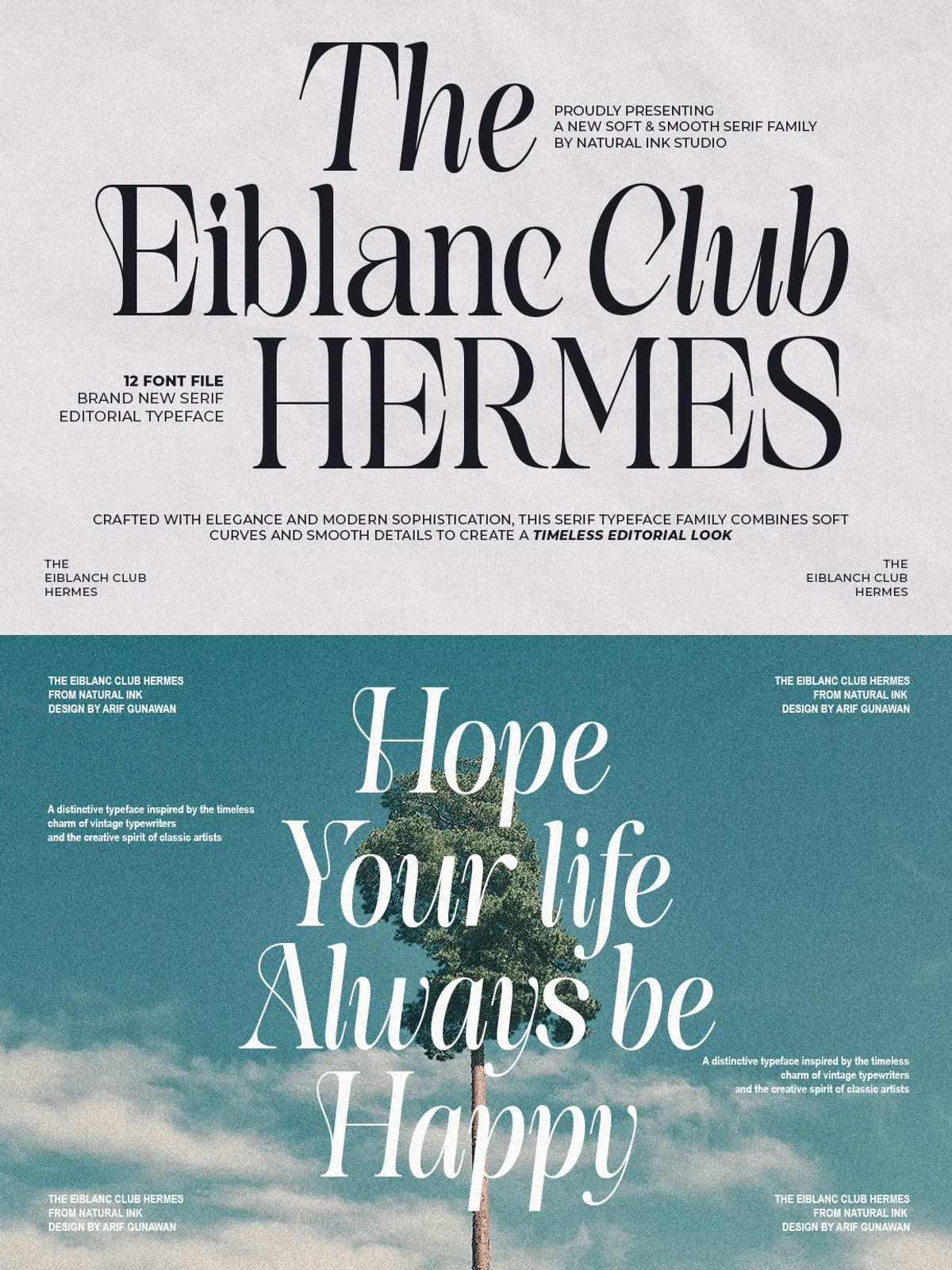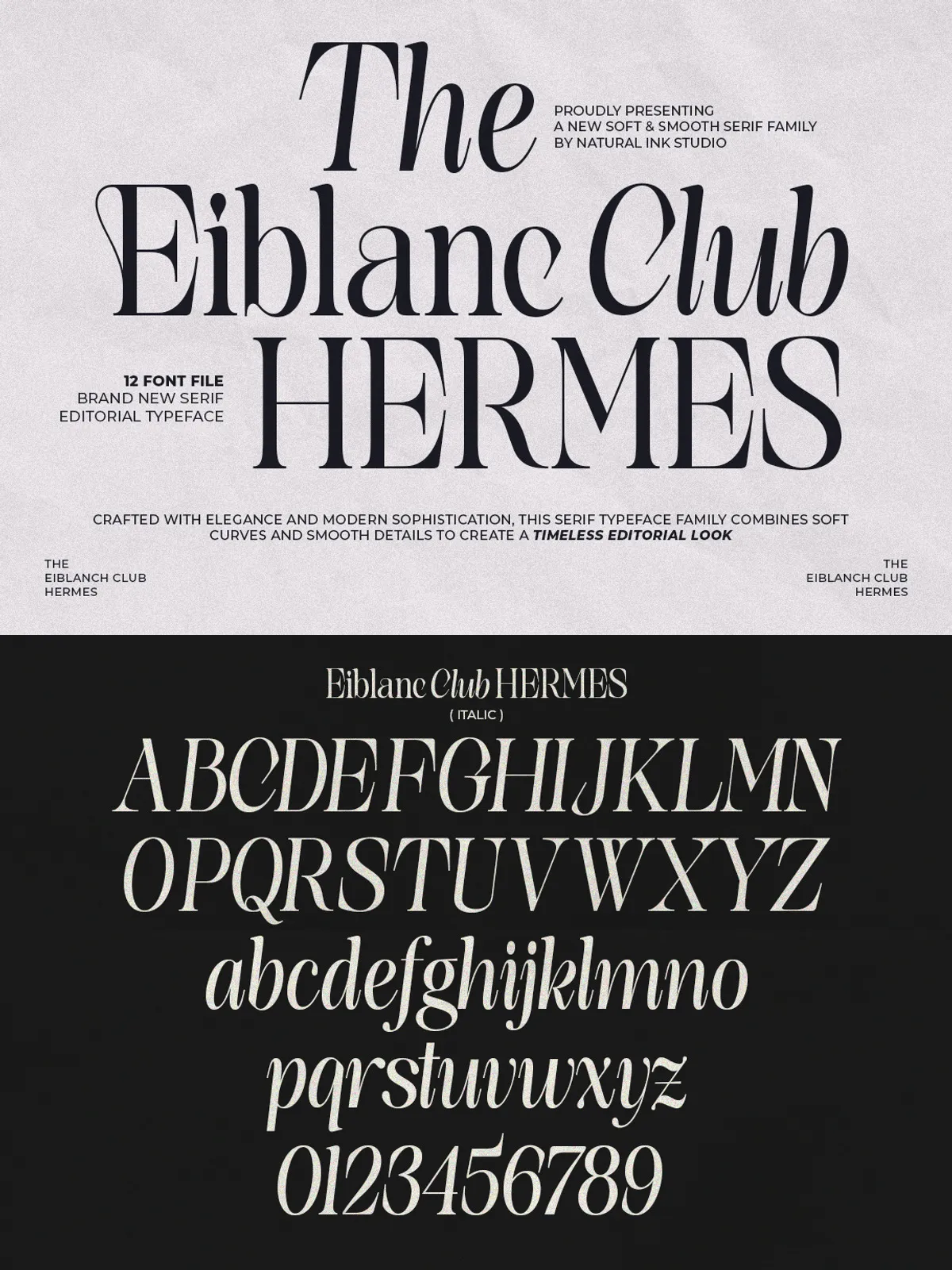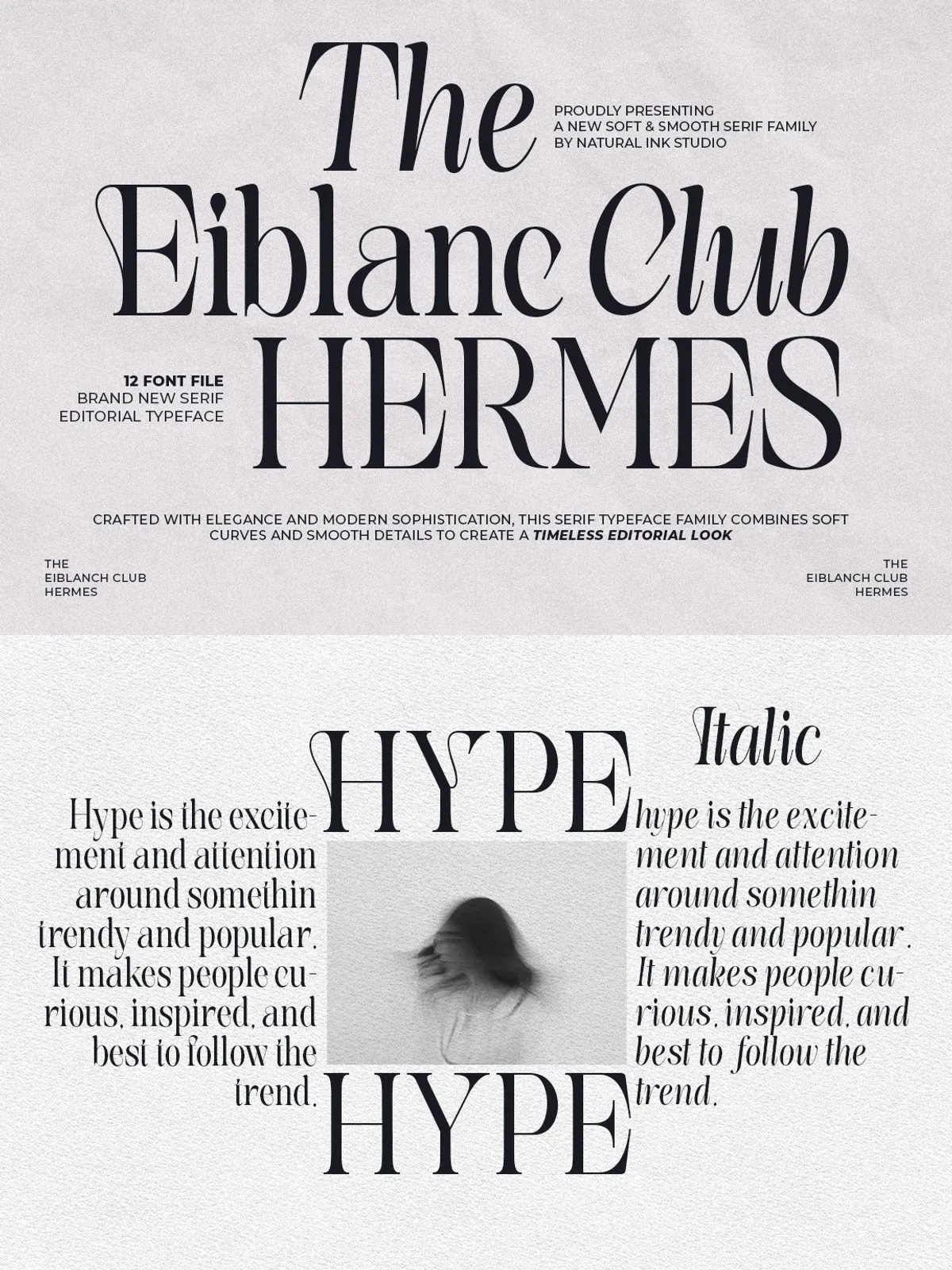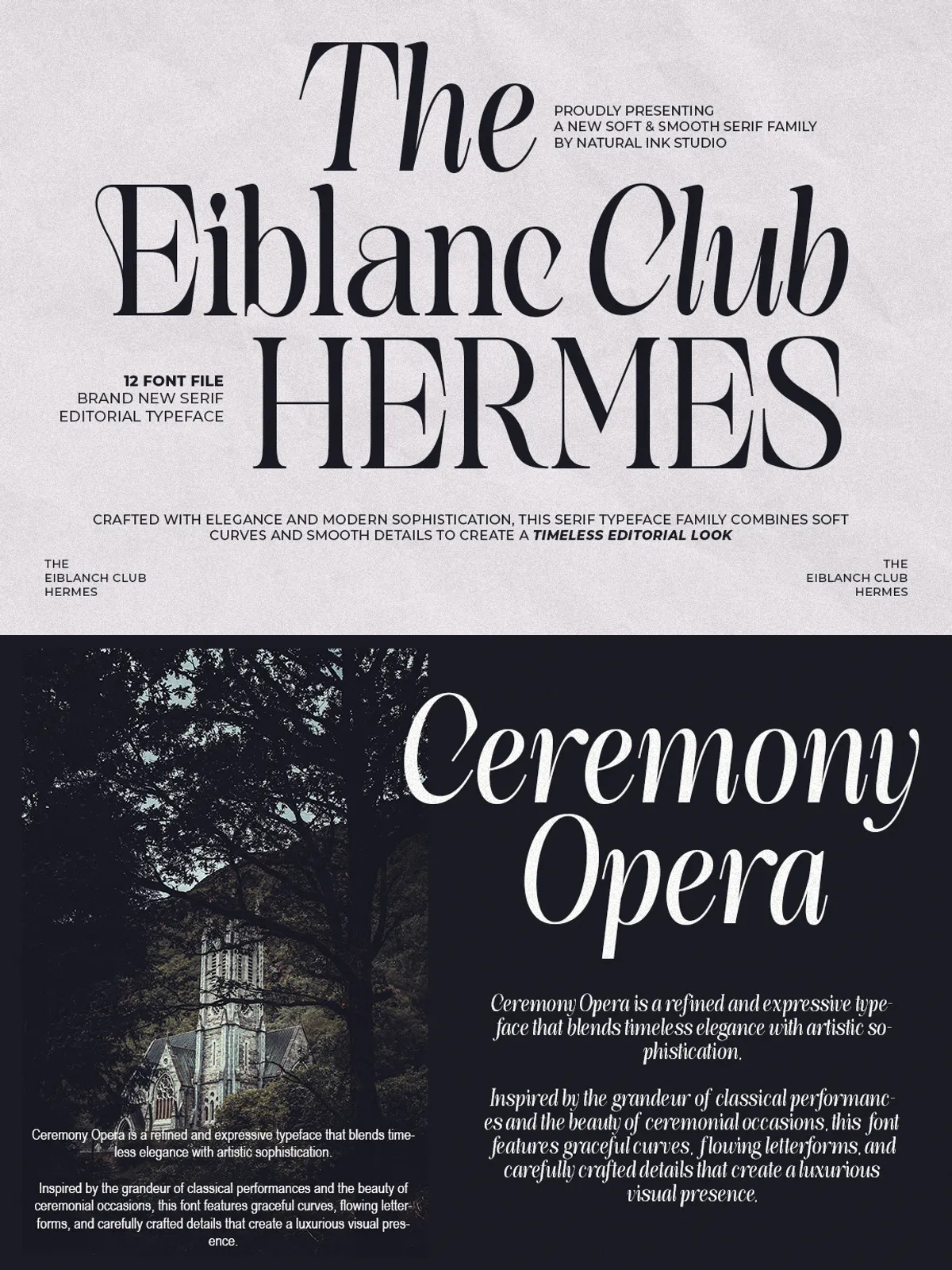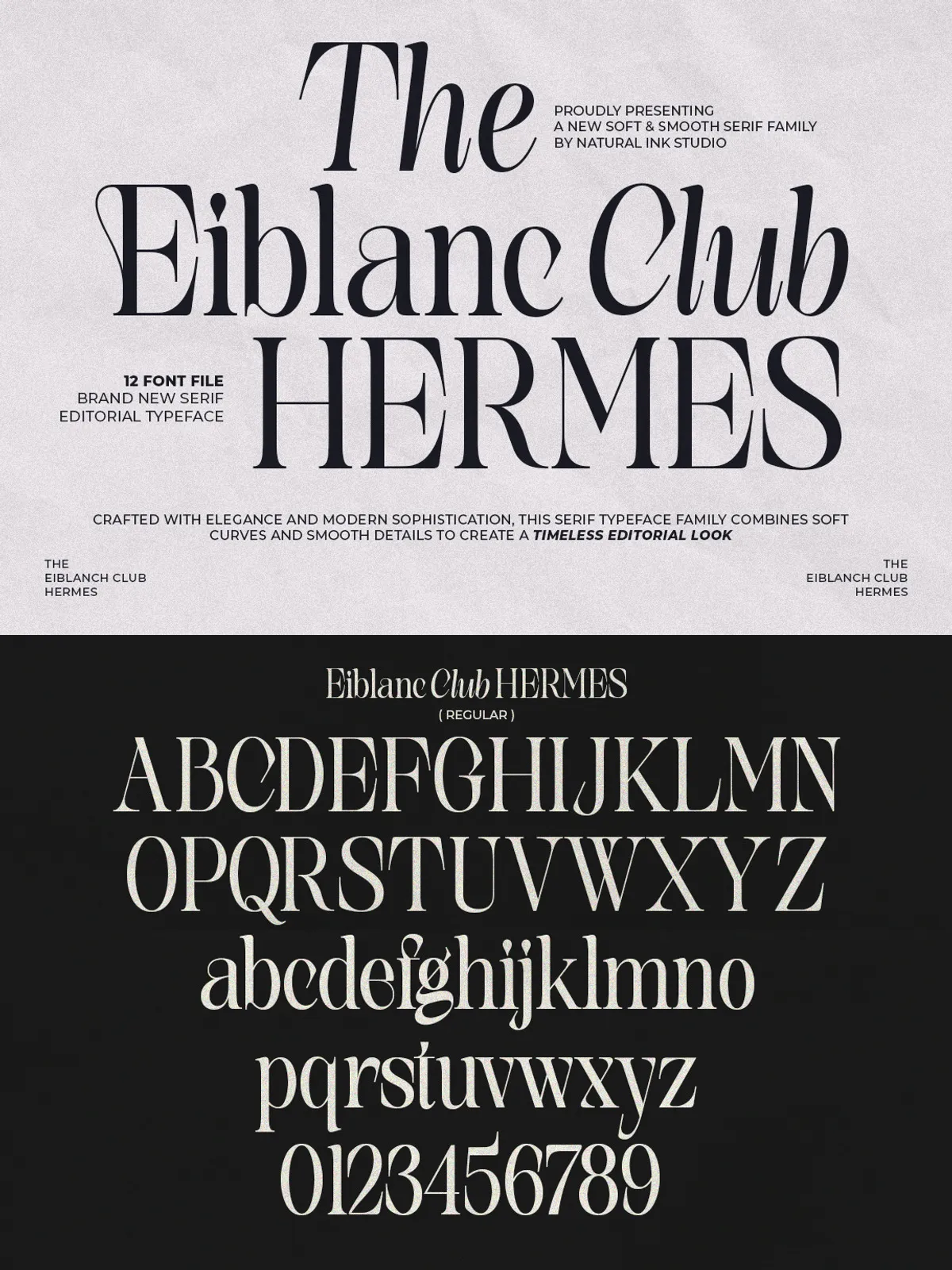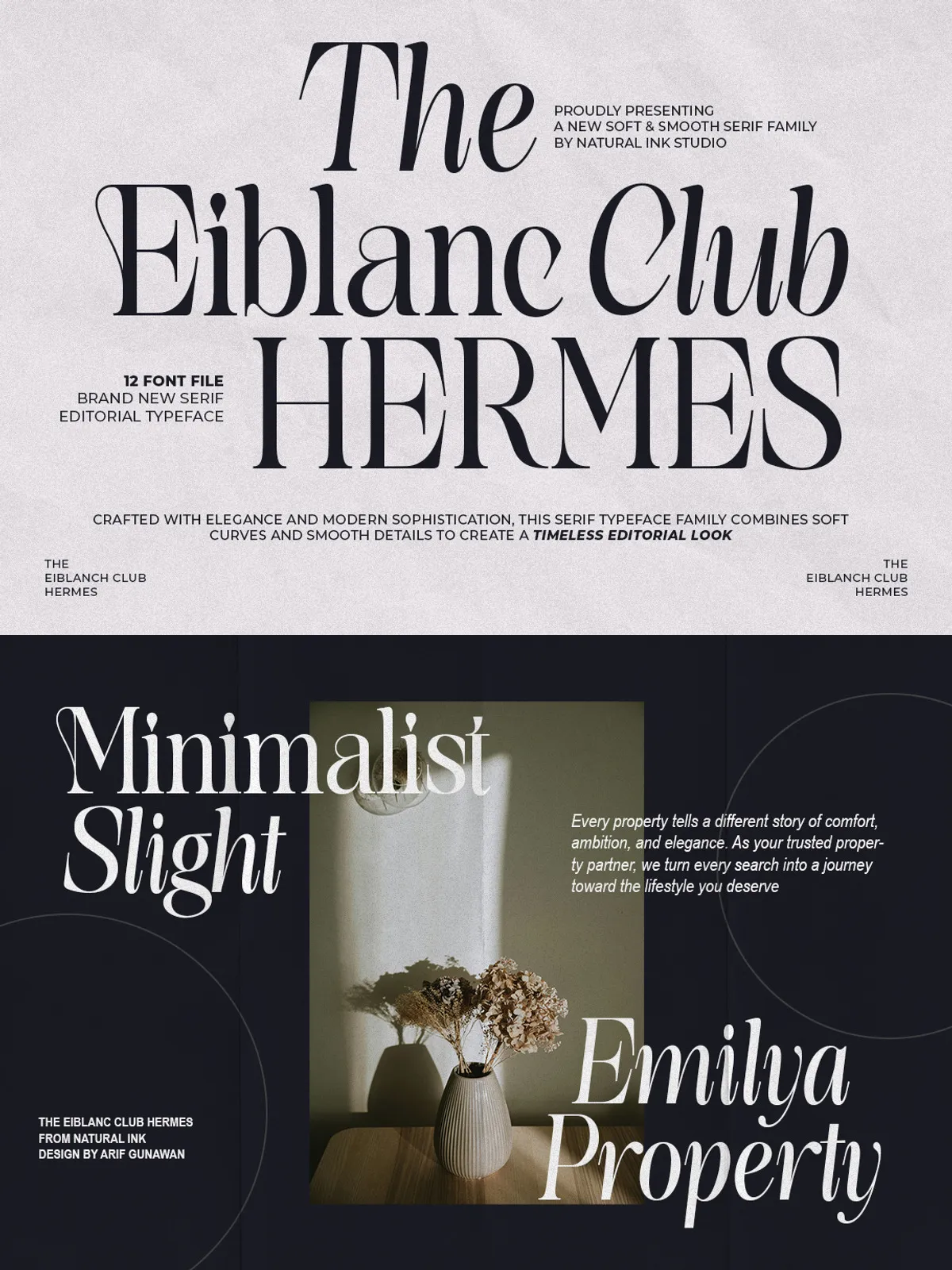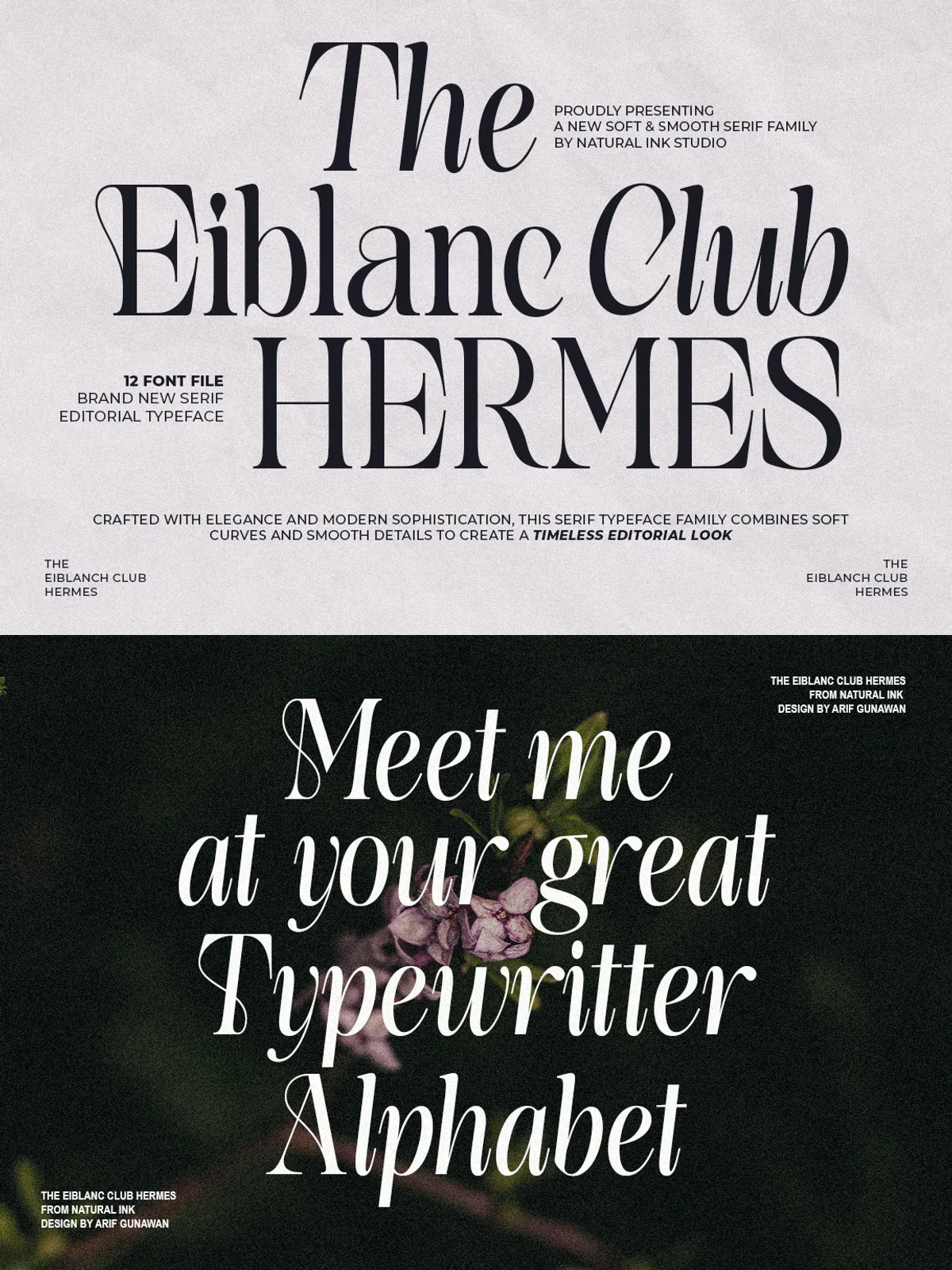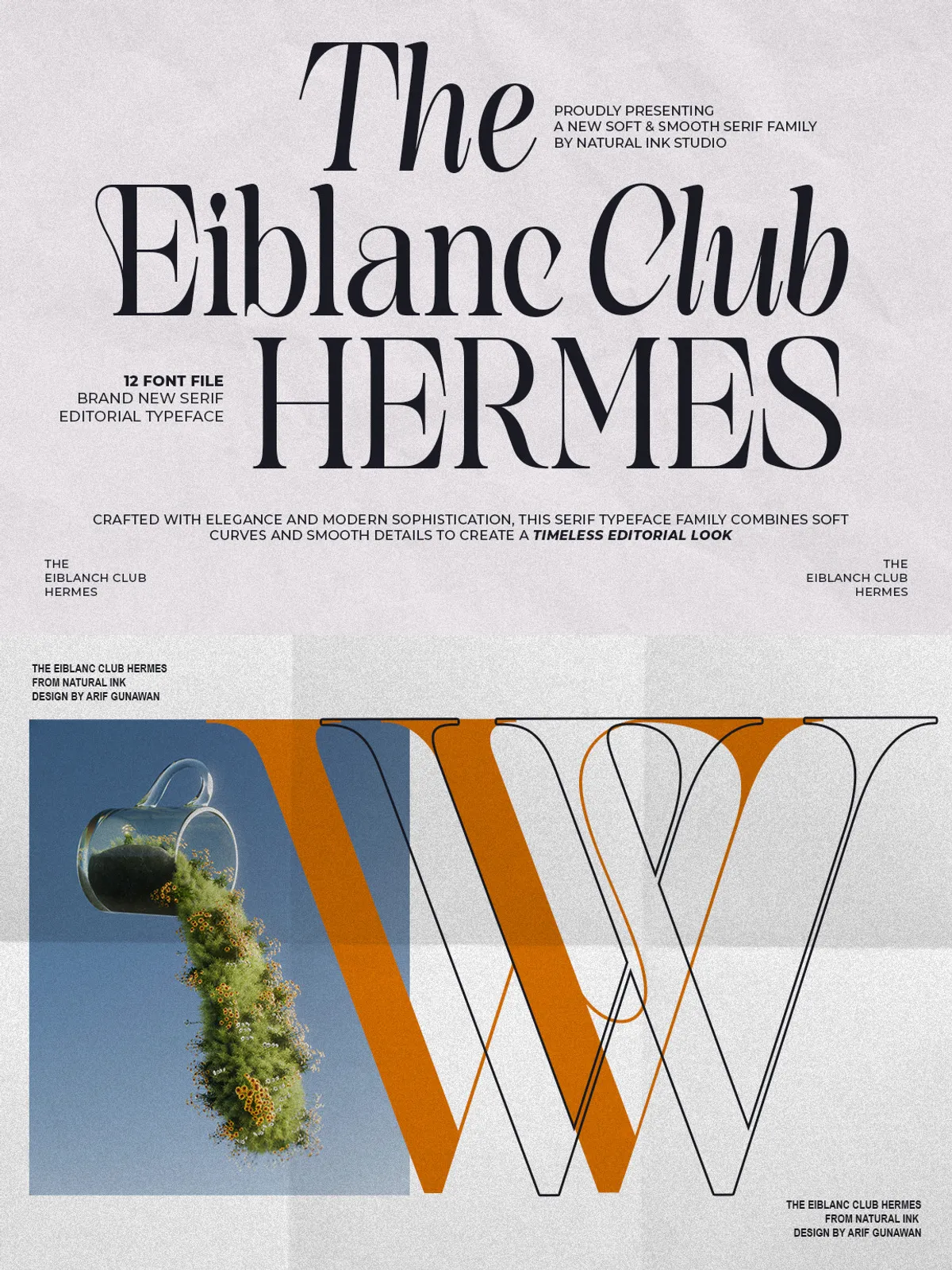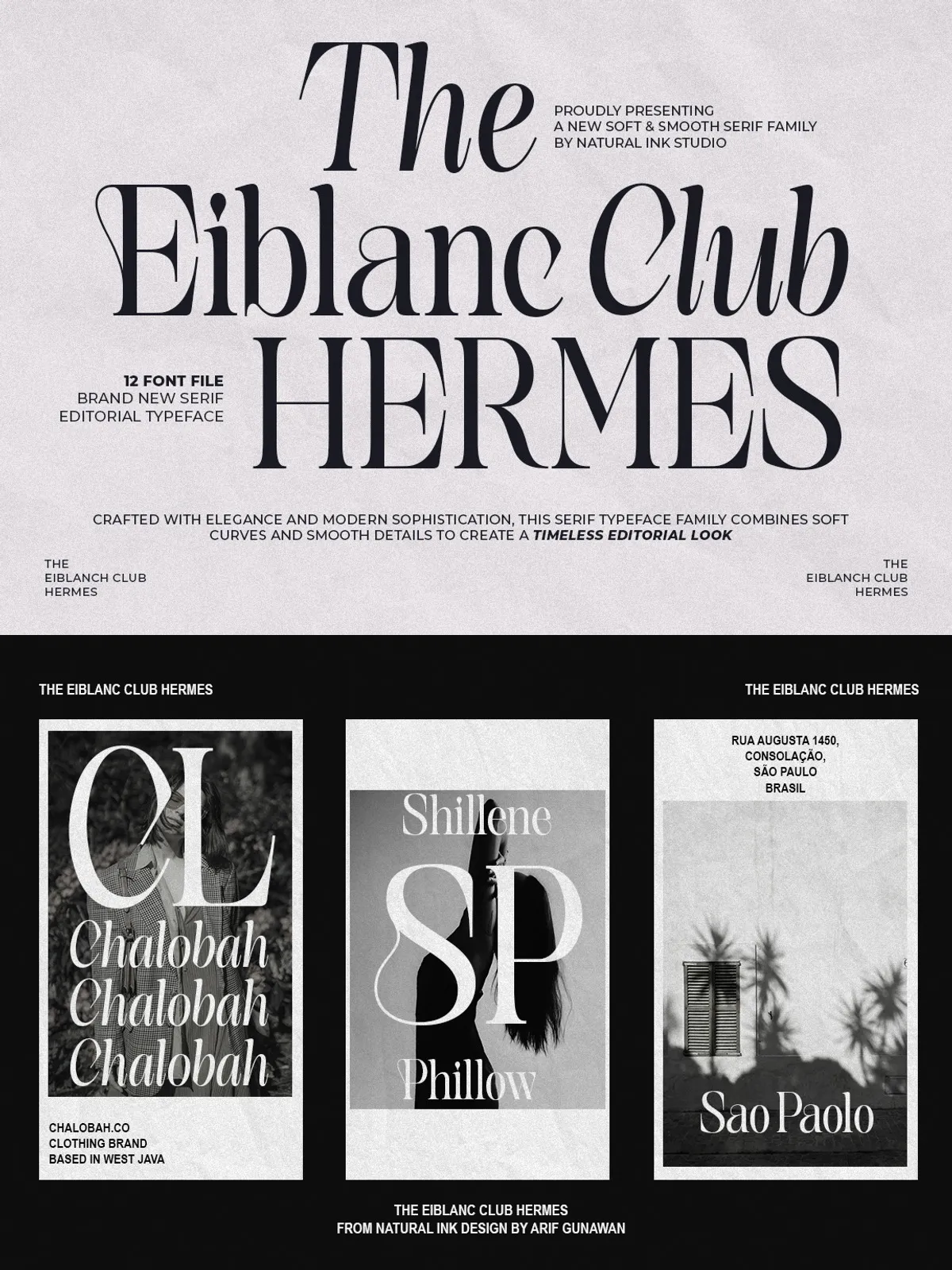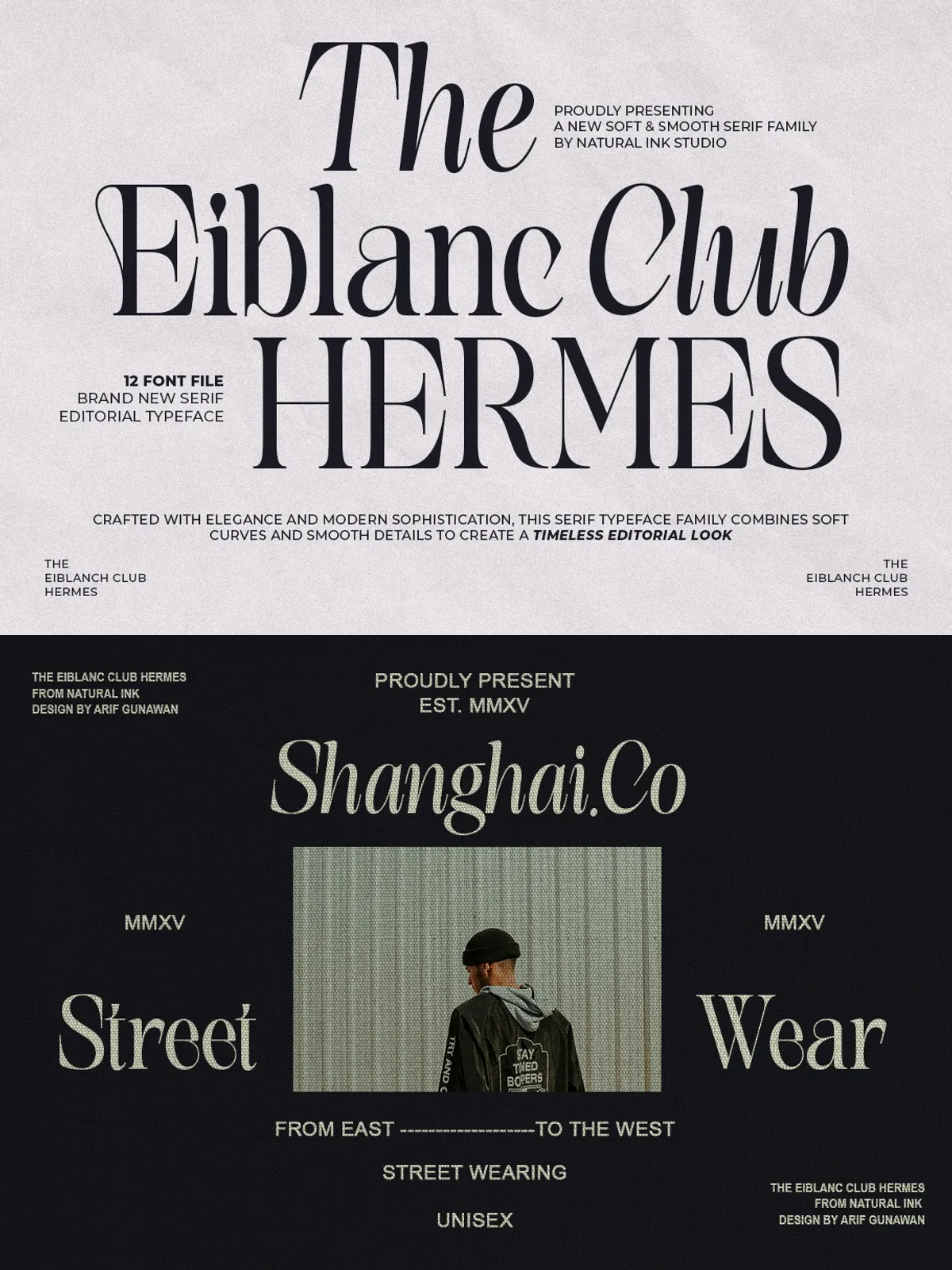
The Eiblanc Club Hermes delivers a polished serif toolkit built to elevate premium design. Composed of twelve expertly crafted font files, this family fuses classic editorial proportions with contemporary clarity. Each weight and style actively supports both commanding headlines and readable body text, enabling designers to build cohesive, high-end visual systems that perform across print and digital platforms.
Design Character & Voice
Refined Letterforms
The Eiblanc Club Hermes articulates refined stroke contrast and purposeful serif terminals that anchor each character with timeless grace. Letter shapes balance expressive calligraphic roots with rational proportions, producing text that reads with authority while remaining approachable. The serif details add character without compromising legibility at display sizes or in extended copy.
Contemporary Editorial Influence
This family actively translates editorial tradition into a modern toolkit: strong headline presence, reliable mid-weight options, and delicate hairlines for sophisticated settings. The typeface emphasizes rhythm and texture across paragraphs, helping editorial layouts, longform spreads, and brand systems feel curated and intentional.
Recommended Uses
Luxury Branding & Logos
Apply Eiblanc Club Hermes to premium identities where heritage and clarity matter. The family’s refined serifs and balanced proportions command attention for wordmarks, monograms, and logotype lockups. Use heavier weights for impactful logos and lighter styles for subtle brand text to maintain an elegant hierarchy across collateral.
Magazines, Editorial & Lookbooks
Packaging & Product Design
Use the serif family to signal craftsmanship and premium quality on labels, boxes, and product hang-tags. Eiblanc Club Hermes enhances perceived value for fashion, fragrance, and specialty food items by communicating heritage and careful design decisions.
Invitations, Stationery & Premium Communications
Deliver an elevated tone for wedding stationery, invitations, certificates, and brand announcements. Ornamental headline weights and finer text styles combine to create layouts that feel both ceremonial and contemporary.
Pairing & Styling Advice
Pair Eiblanc Club Hermes with minimalist sans-serifs to form modern, balanced identities. Reserve the serif family for headlines, primary branding, and key messaging; support longer paragraphs with a neutral sans or a low-contrast serif to preserve reading comfort. Increase letter-spacing slightly for large display settings and tighten tracking for compact headlines to strengthen presence.